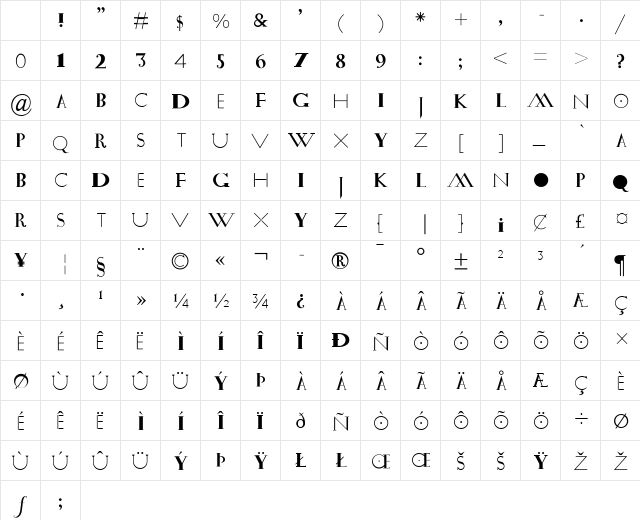
Complete Drone Bold glyph index. Displaying only characters natively supported by Drone Bold font.
Drone is a composed and adaptable typeface that performs quietly and consistently across a wide range of design contexts. Its bold stroke weight gives it real presence on the page.